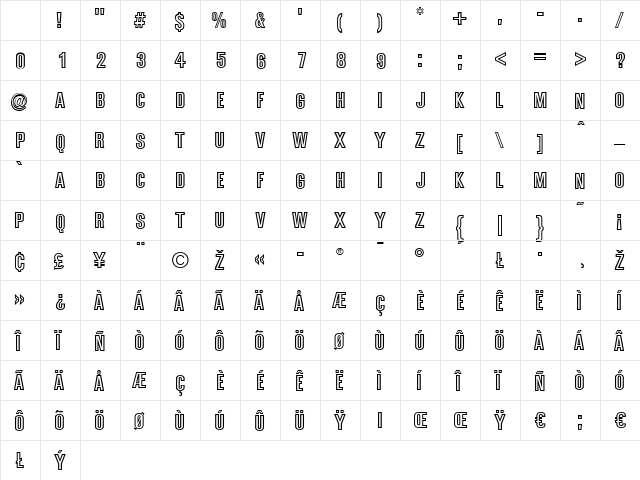
Complete BoldSansOutline Regular glyph index. Displaying only characters natively supported by BoldSansOutline Regular font.
BoldSansOutline is built around its visual character rather than neutral utility - its distinctive forms are designed to make an impression at display sizes. Its bold stroke weight gives it real presence on the page.
Font Pairing: Pair with a clean neutral sans-serif for body copy to let BoldSansOutline's character lead without overwhelming the composition.
Pro Tip: Use BoldSansOutline exclusively at display sizes - it was designed to be seen, not read at length. Let a neutral companion handle body copy.